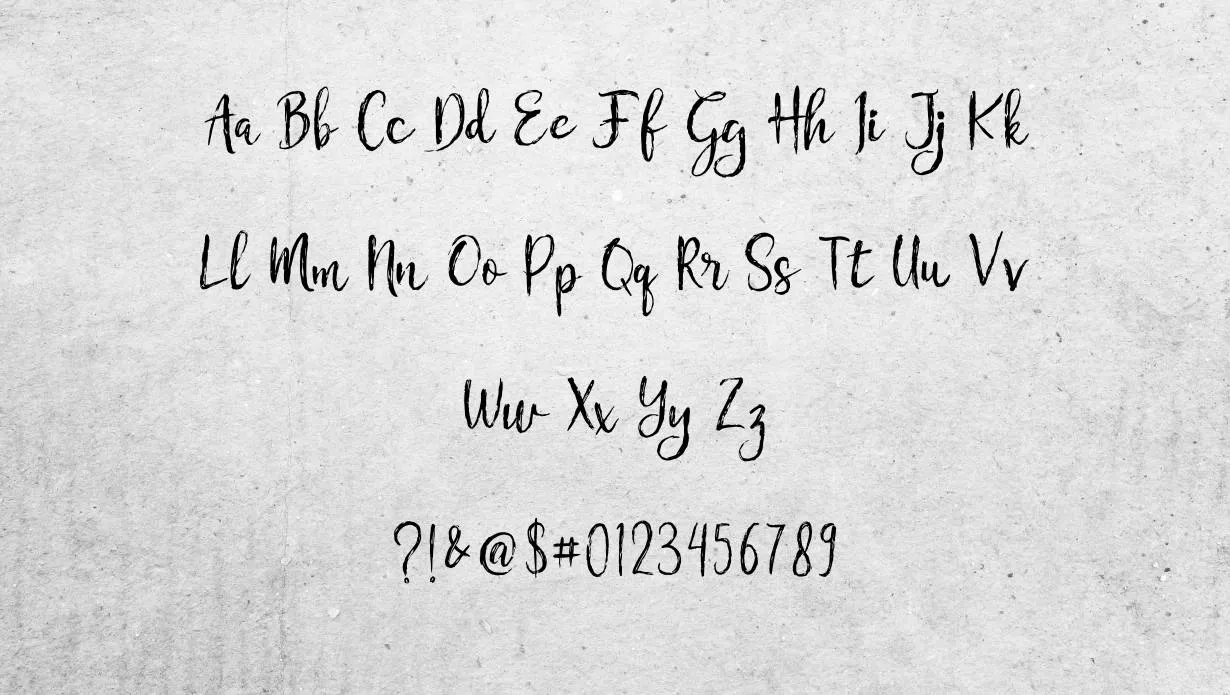
Chamille Font is an elegant and sophisticated typeface known for its graceful and refined appearance. Its delicate curves and classic design make it perfect for beauty product packaging, wedding stationery, and high-end branding.